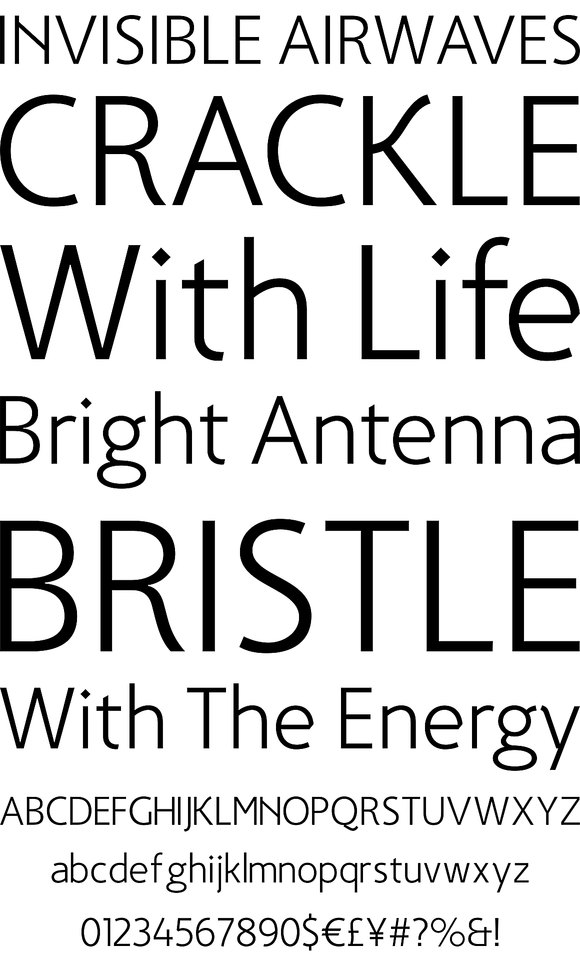
Fox Sans TRF
Foundry: TipografiaRamis
Fox Sans TRF is a part of Fox family which consists two subfamilies: Fox TRF and Fox Sans TRF. Fox Sans TRF - geometric sans serif - Includes six styles, in roman and italic, respectively. This subfamily's lowercase letters have a genuine neo-grotesque shape construction without any decorative distractions.